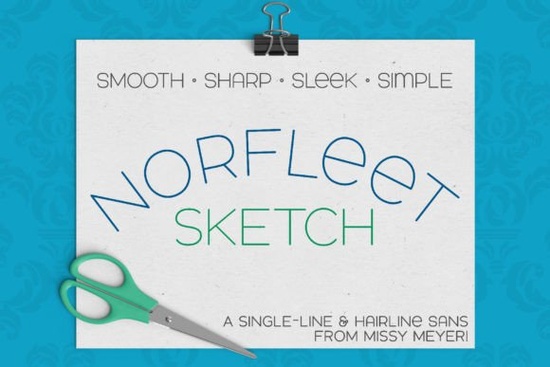
If you've ever tried to use a sketch pen, foil quill, or engraving tool with a regular font, you already know the problem standard fonts draw outlines, not clean single lines. The Norfleet Sketch (single Line) Font solves that. It was built from the ground up as a single-line font, giving you crisp, elegant strokes that work perfectly with specialty tools and machines. Whether you're personalizing gifts, running a small crafting business, or experimenting with new design techniques, this font fills a gap that most typefaces simply don't address.
What Is a Single-Line Font, and Why Does It Matter?
Single-line fonts (sometimes called stroke fonts or hairline fonts) are designed so that each letter is drawn with one continuous line rather than an outlined shape. This makes them ideal for tools that draw or engrave rather than print. Think of:
- Sketch pens in Cricut or Silhouette machines
- Foil quill tools for adding metallic lettering to cards and projects
- Engraving attachments for jewelry, wood, or acrylic
- Infusible ink pens for sublimation-style projects
- Glowforge scoring for laser-cut designs
Regular fonts trace around each letter, creating a doubled-up path that looks messy with these tools. A single-line font skips that problem entirely.
What Makes Norfleet Sketch Different From Other Fonts?
Norfleet Sketch stands out because it's clean, modern, and versatile. It's a sans-serif typeface with smooth curves, minimal nodes, and a wide stance that reads well at any size. The design is simple a double-uppercase style with a few lowercase variants, like a round-topped A and a lowercase-style e. That simplicity is intentional. It pairs well with almost any other font you already use in your projects. If you prefer a bolder look alongside it, something like the Charm Grunge font could complement it nicely for layered designs.
The font also includes two versions, and understanding the difference between them matters.
What's the Difference Between "One" and "Two" Versions?
This is one of the most common questions about this typeface, and it's worth breaking down clearly:
- Norfleet Sketch One is a true single-line font made from a single continuous stroke. Some CNC and specialty programs like Rhinoceros work directly with this format. In most standard design programs, the start and end points of each stroke get connected automatically. If you're comfortable with vector editing in Illustrator, Inkscape, or Affinity Designer, you can manually remove those connections.
- Norfleet Sketch Two is a hairline font. It's technically an outline font, but the strokes are so close together that they look like a single line. This version works right away in most crafting and design programs no extra steps needed.
Where Can You Use This Font?
Norfleet Sketch works beautifully for a range of projects:
- Wedding invitations and event stationery
- Personalized mugs, tumblers, and drinkware
- Custom signage and wall art
- Jewelry engraving and monograms
- Greeting cards with foil detailing
- Gift tags, labels, and packaging for small businesses
It's especially useful for print-on-demand sellers who want to offer engraved or foil-stamped products without investing in custom vector lettering every time.